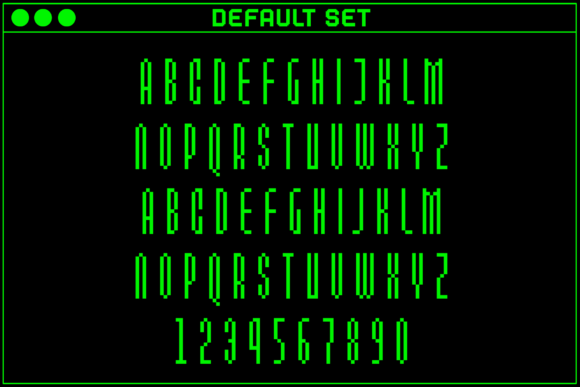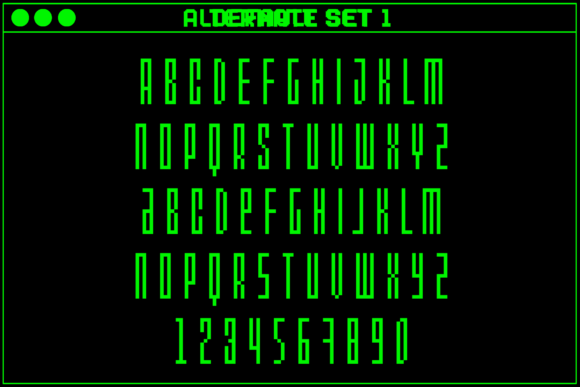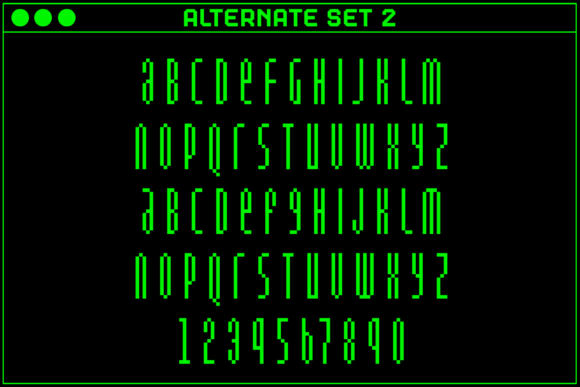
Introduction to MultiType Pixel Slim Font
You know that moment when you’re working on a design project and you need just the right font to give it that extra oomph? For designers, finding the perfect font can be a game-changer. It’s like stumbling upon a hidden treasure that elevates your entire creative project. And today, we’re excited to share with you a unique find that’s sure to add some excitement to your designs: the MultiType Pixel Slim Font.
This cool, pixelated display font is a high-quality design resource that’s perfect for adding a distorted and trendy touch to your designs. With its sleek, slim shape and transparent background, it’s a versatile tool that can be used in a variety of creative projects. And the best part? It’s free to download, making it an invaluable resource for designers of all levels.
Key Features of MultiType Pixel Slim Font
- High-quality design for use in creative projects, offering a sleek and modern aesthetic.
- Features a transparent background, allowing for easy customization and layering in your creative project.
- Designed with a slim pixel style, making it perfect for digital displays and high-resolution screens.
- Resolution-independent, ensuring crisp and clear typography across various devices and display settings.
Honest Review: MultiType Pixel Slim Font
As a designer, I’m always on the lookout for high-quality design resources to elevate my creative projects. The MultiType Pixel Slim Font is one such resource that caught my attention. Upon closer inspection, I found it to be a solid choice for any design project.
- ✨ High-quality font design: The MultiType Pixel Slim Font has a sleek and modern aesthetic that’s perfect for digital design projects.
- ✨ Transparent background: This allows for seamless integration with any background, giving you more design flexibility.
- ⚠️ Limited character set: While the font is well-designed, its character set is limited, which may not be suitable for projects requiring extensive typing.
- ⚠️ Not ideal for print design: The font’s digital nature makes it less suitable for print design projects.
Overall, the MultiType Pixel Slim Font is a solid choice for digital design projects. Its high-quality design, transparent background, and free download make it an excellent resource for designers. However, its limited character set and digital focus may limit its use in other design contexts.
MultiType Pixel Slim Font is ideal for creative projects that require a high-quality, transparent background font. It’s perfect for use in digital design, graphic design, and even web design.